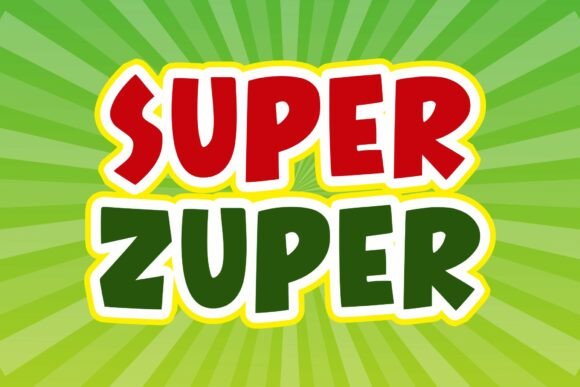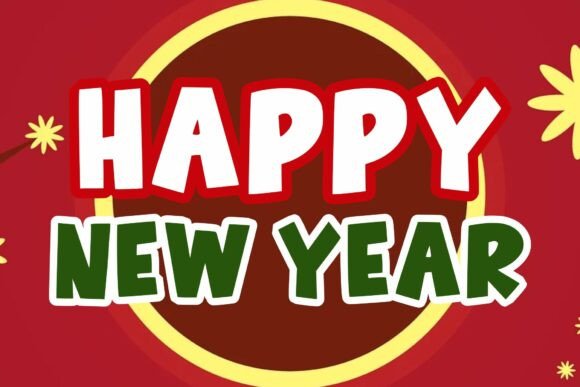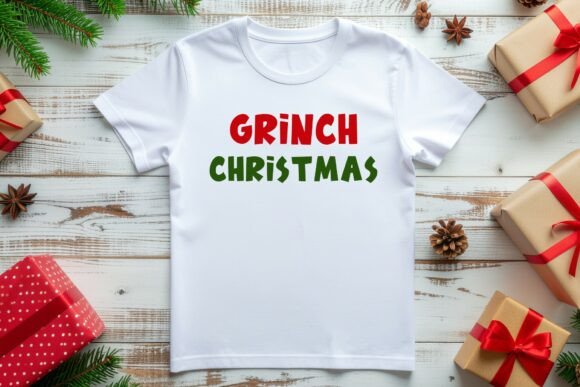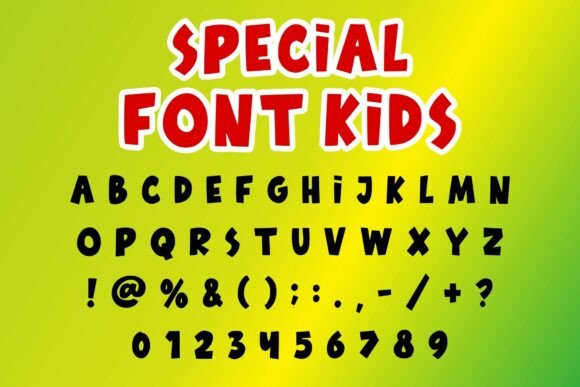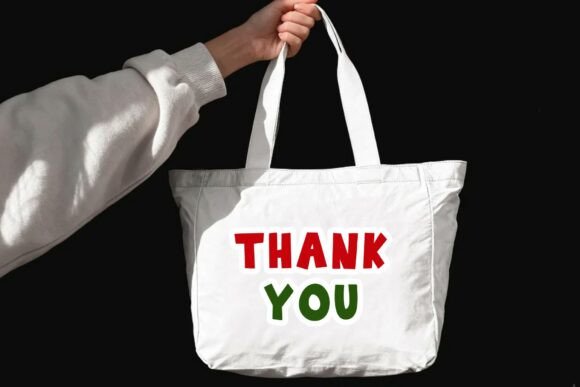
Introduction to Magic Grinch Font
As a designer, you know the magic moment when a project comes together, and all the elements click. It’s the feeling of excitement and pride that comes with creating something special. For many of us, the holiday season is a time to tap into that creative spark and bring joy to others through our work. One of the most effective ways to infuse your designs with festive cheer is by using the right font. That’s where the Magic Grinch Font comes in – a spirited and “cute Christmas font” that’s sure to steal the show.
This playful typeface features heavy, cartoonish letterforms with a thick white outline, making it an instant standout against holiday-themed backgrounds. Its versatility and high quality make it an invaluable design resource, perfect for a wide range of creative projects, from Christmas cards and gift tags to festive apparel and seasonal marketing campaigns.
Key Features of Magic Grinch Font
- Unique, hand-drawn design with a touch of whimsy and magic, perfect for creative projects.
- High-quality font with a transparent background, ideal for use on various backgrounds and designs.
- Perfect for adding a playful, Grinch-inspired touch to your designs, from invitations and posters to digital graphics and more.
Honest Review: Magic Grinch Font
I recently came across the Magic Grinch Font, and I must say it’s a fascinating design resource. As a designer, I appreciate fonts that can add a touch of personality to a project. The Magic Grinch Font is a great example of this, offering a unique and quirky feel that can elevate a creative project.
What works well with the Magic Grinch Font is its high-quality design. The font is crisp and clear, making it perfect for use on a variety of materials, from business cards to digital graphics. The transparent background option also allows for seamless integration into different design elements.
However, there are some limitations to consider. The Magic Grinch Font is limited to a specific style, which may not be suitable for all design projects. Additionally, the font may not be as versatile as some other design resources.
Overall, I think the Magic Grinch Font is a great addition to any designer’s toolkit. While it may have some limitations, its unique design and high-quality construction make it a valuable resource for creative projects.
Some common use cases for the Magic Grinch Font include designing holiday cards, creating social media graphics, and developing branding materials. To get the most out of this font, make sure to pair it with a high-quality image or design element to create a cohesive and visually appealing design. Additionally, consider using the font in conjunction with a transparent background to add an extra layer of depth and visual interest to your design.